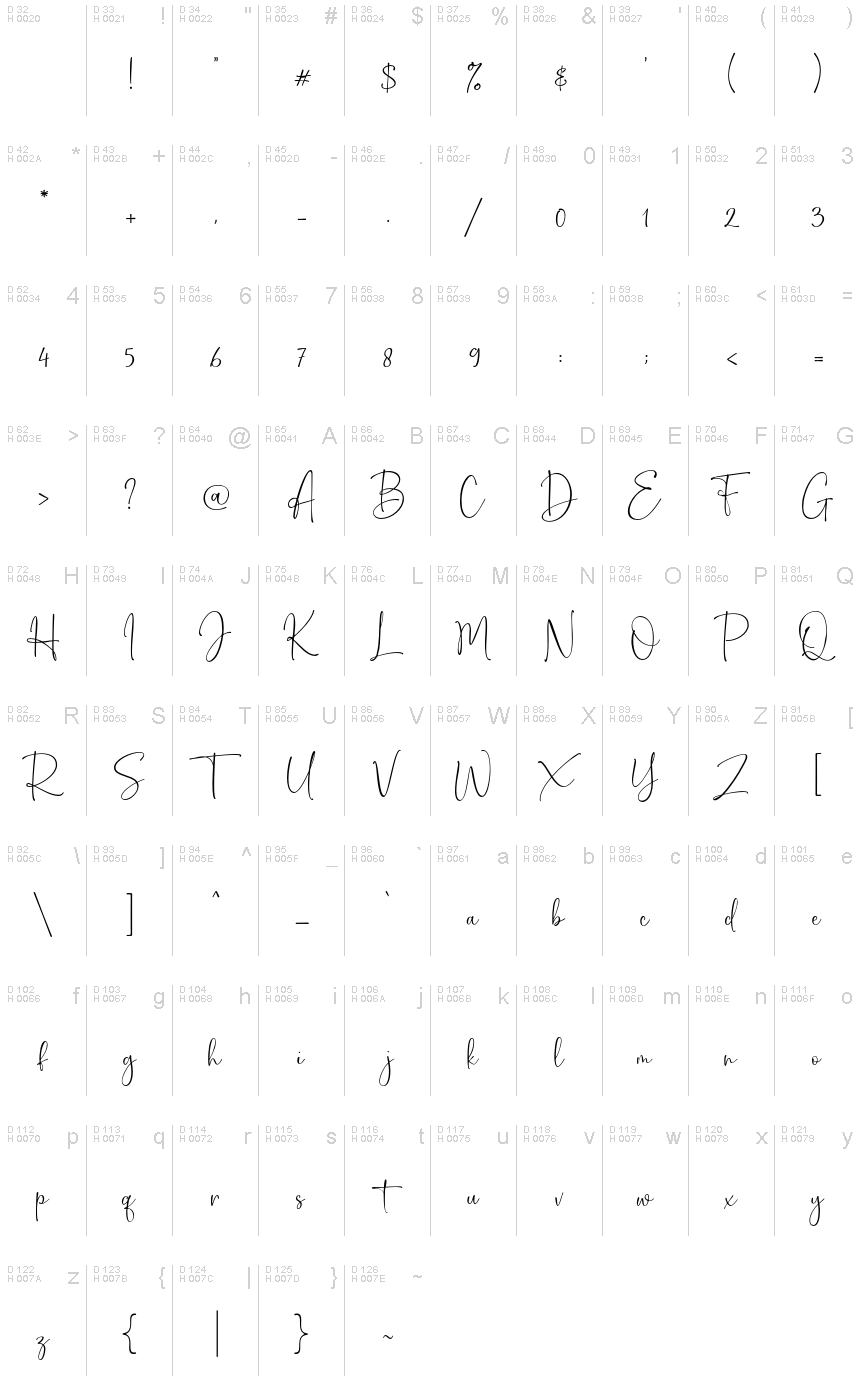
Santley, designed by Letternun, presents an exquisite handwritten font with an extra-light weight that exudes elegance and sophistication. The graceful flow of its lines captures the charm of classic handwriting, while its delicate and refined strokes suggest a sense of intimacy and personal touch.
This font's aesthetic appeal lies in its balance between readability and decorative flair, making it a versatile choice for designers seeking to add a humanistic touch to their projects. Whether it's for wedding invitations, branding materials, or editorial designs, Santley's style ensures that each application is infused with personality and finesse.
With Santley's artistic allure and stylistic versatility, it stands as an inspired choice for those aiming to create designs that require both visual impact and a soft-spoken beauty.